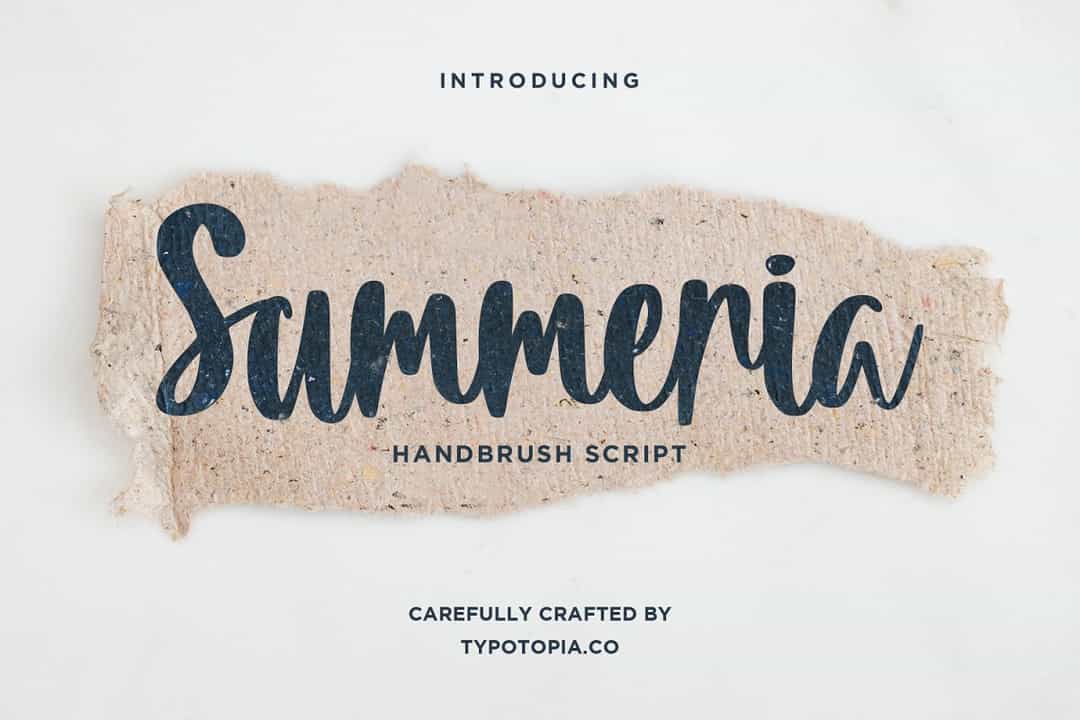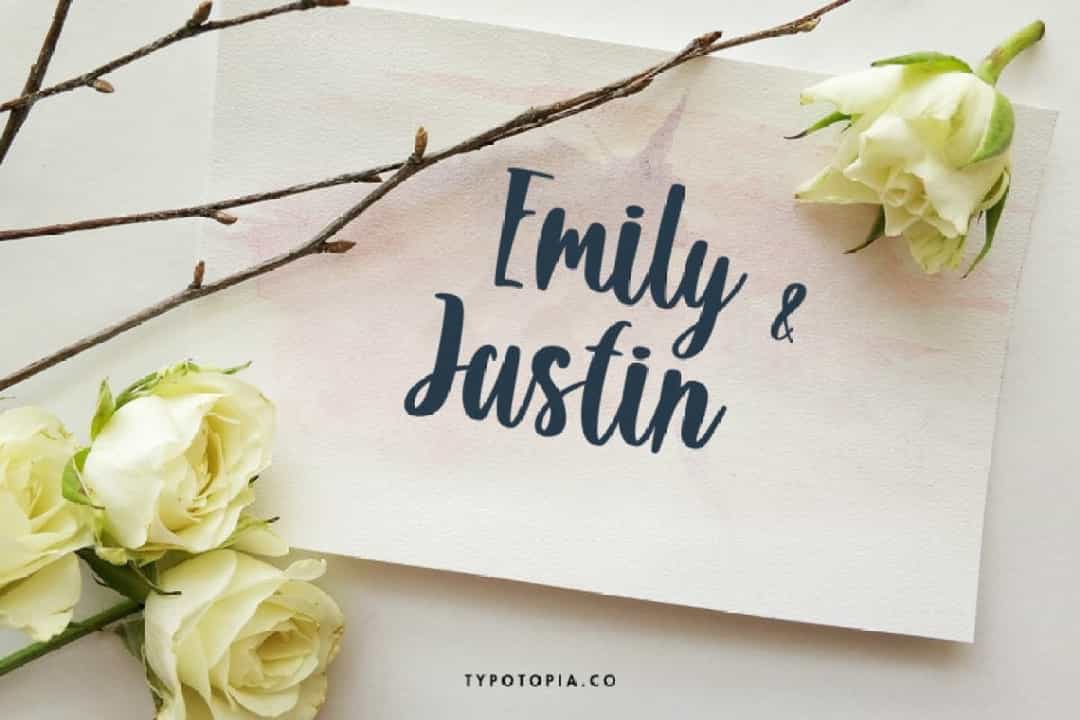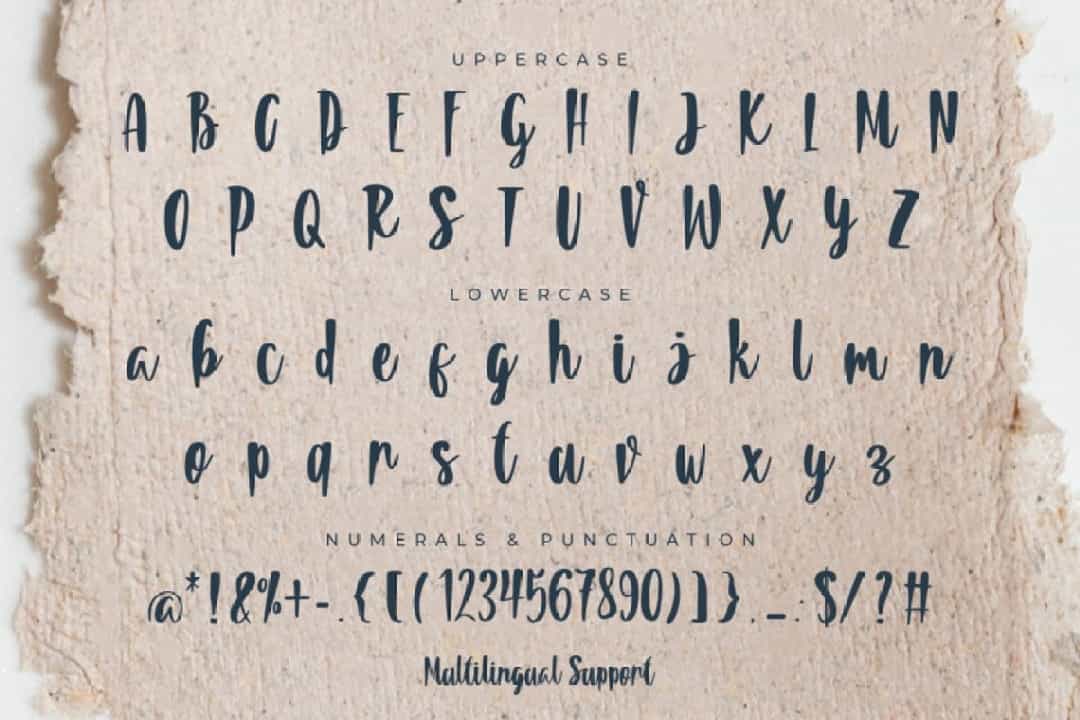
Summeria is a modern handbrush font, with a casual look, that is ideal for logotype, posters, invitations, quotes cards, packaging, headers, letterhead, labels, apparel designs and branding. This Font Is Versatile and Multilingual! Given that each word can be changed in any way that you want this font is a great addition to your Font Library. It also makes work enjoyable, don’t you think?